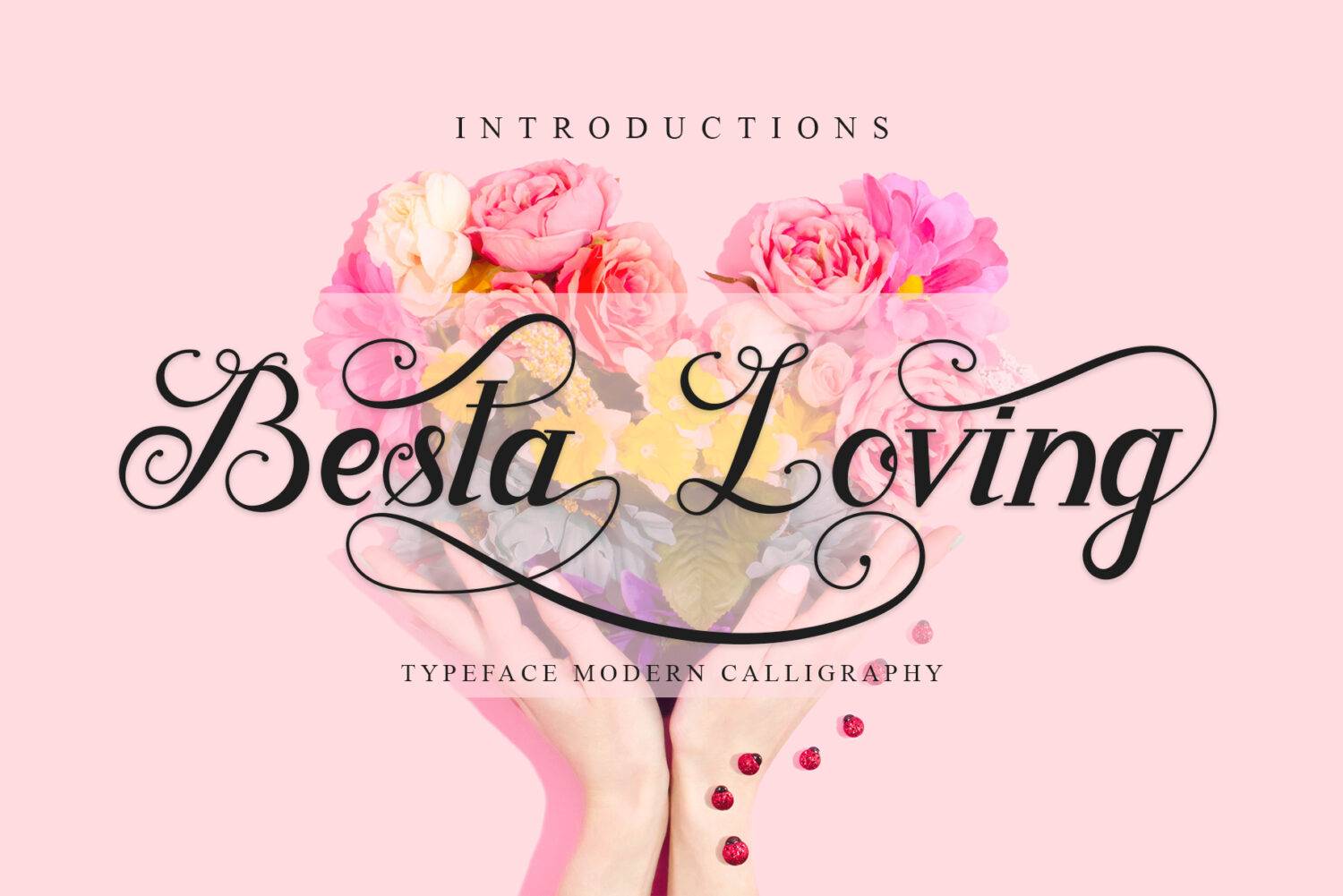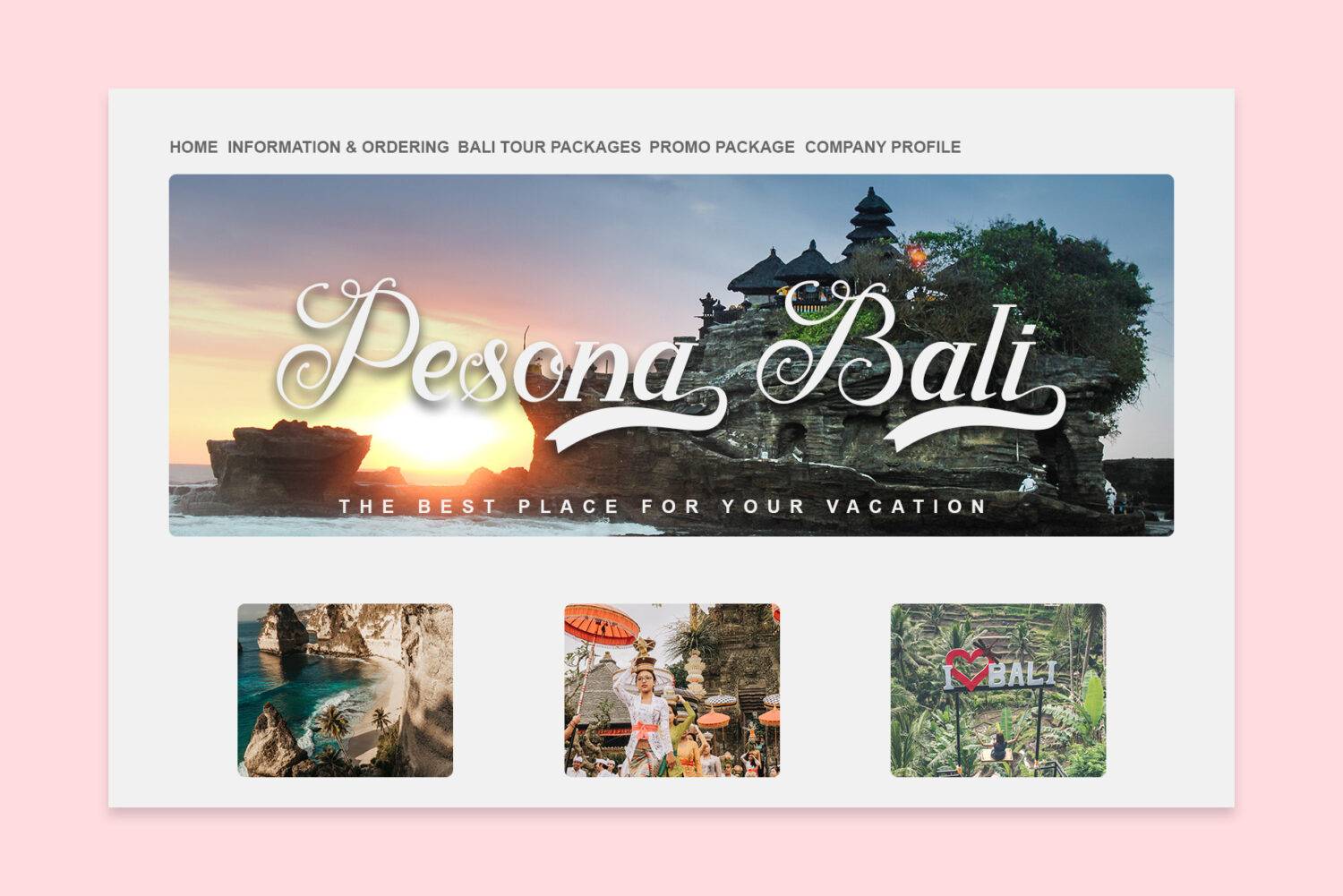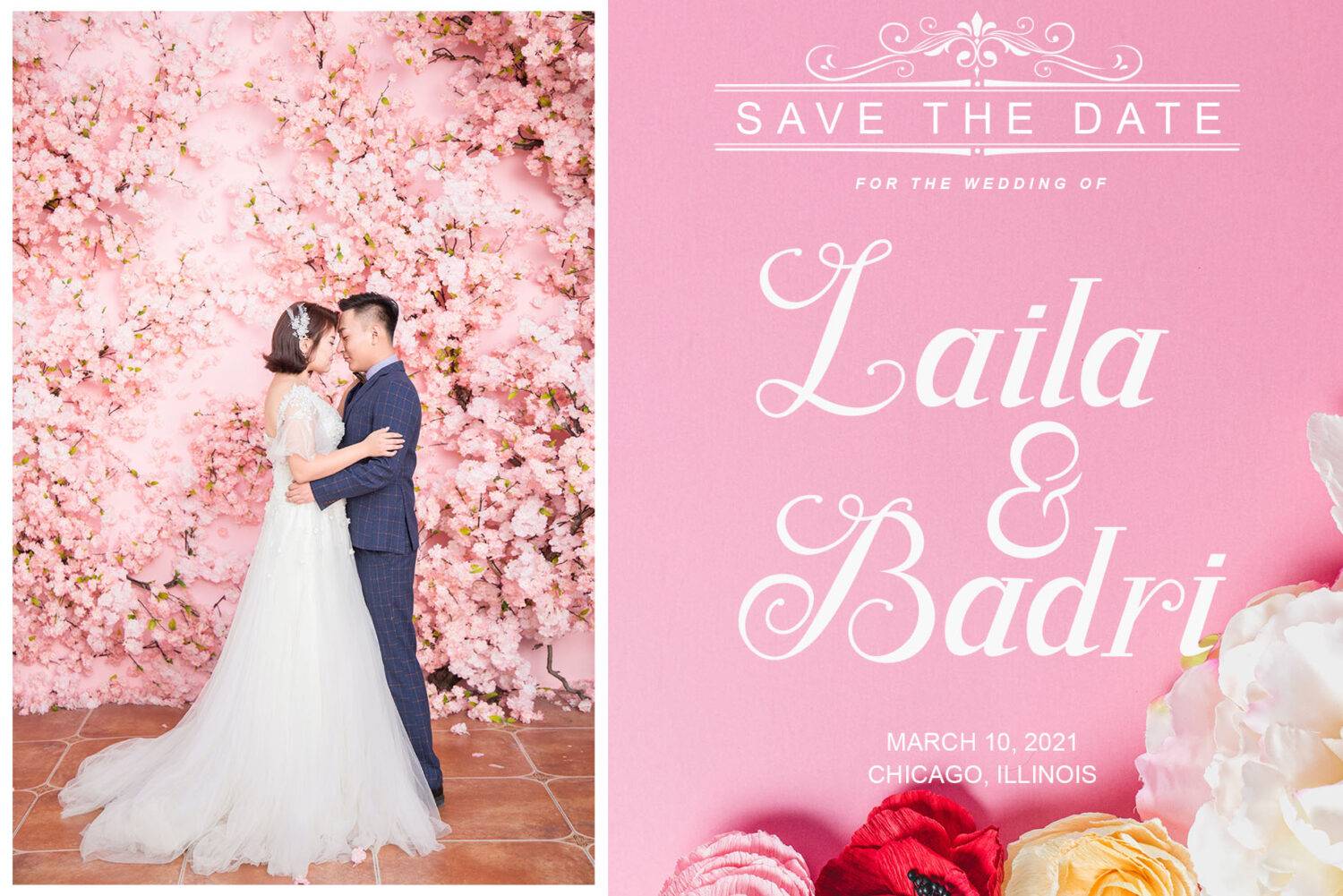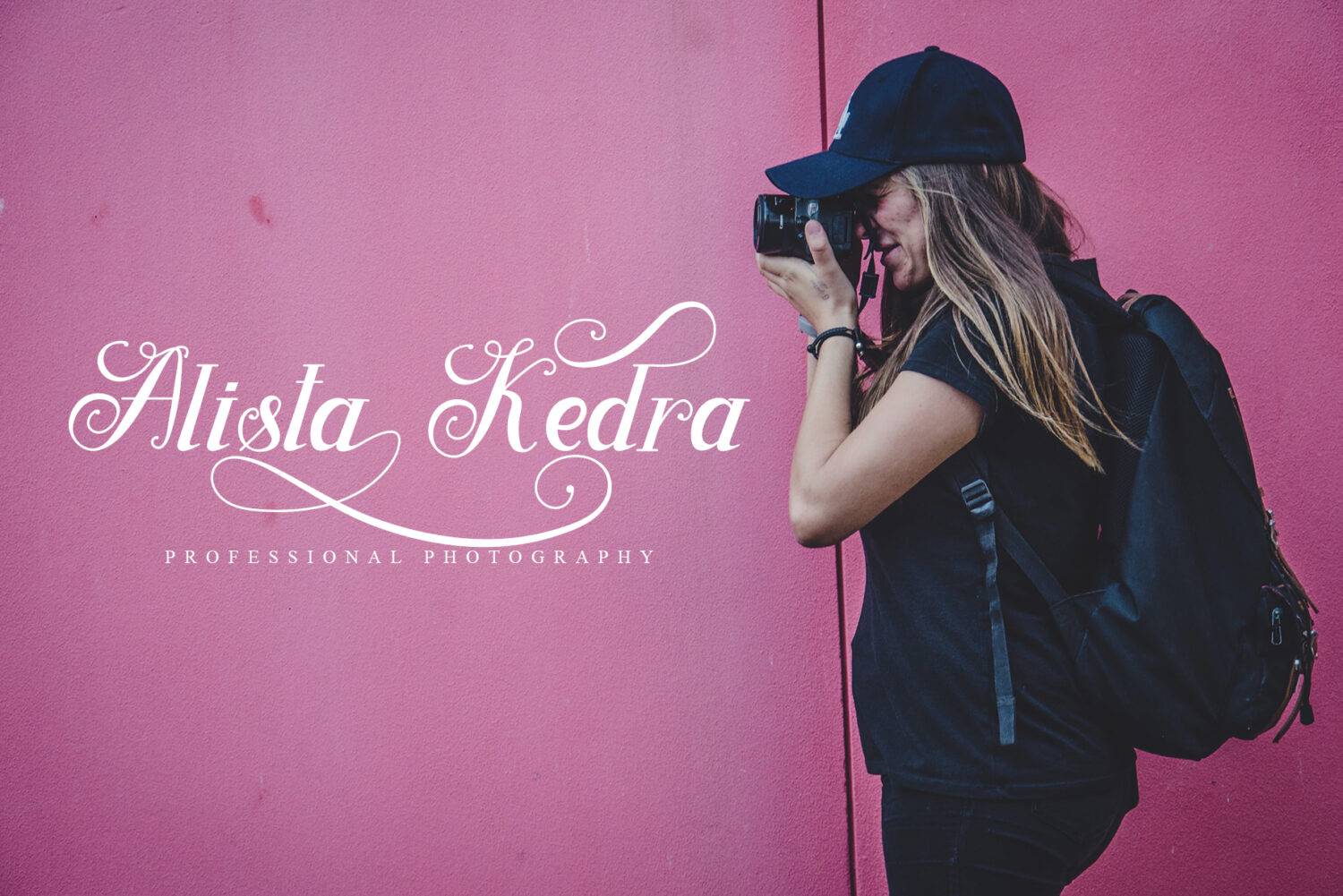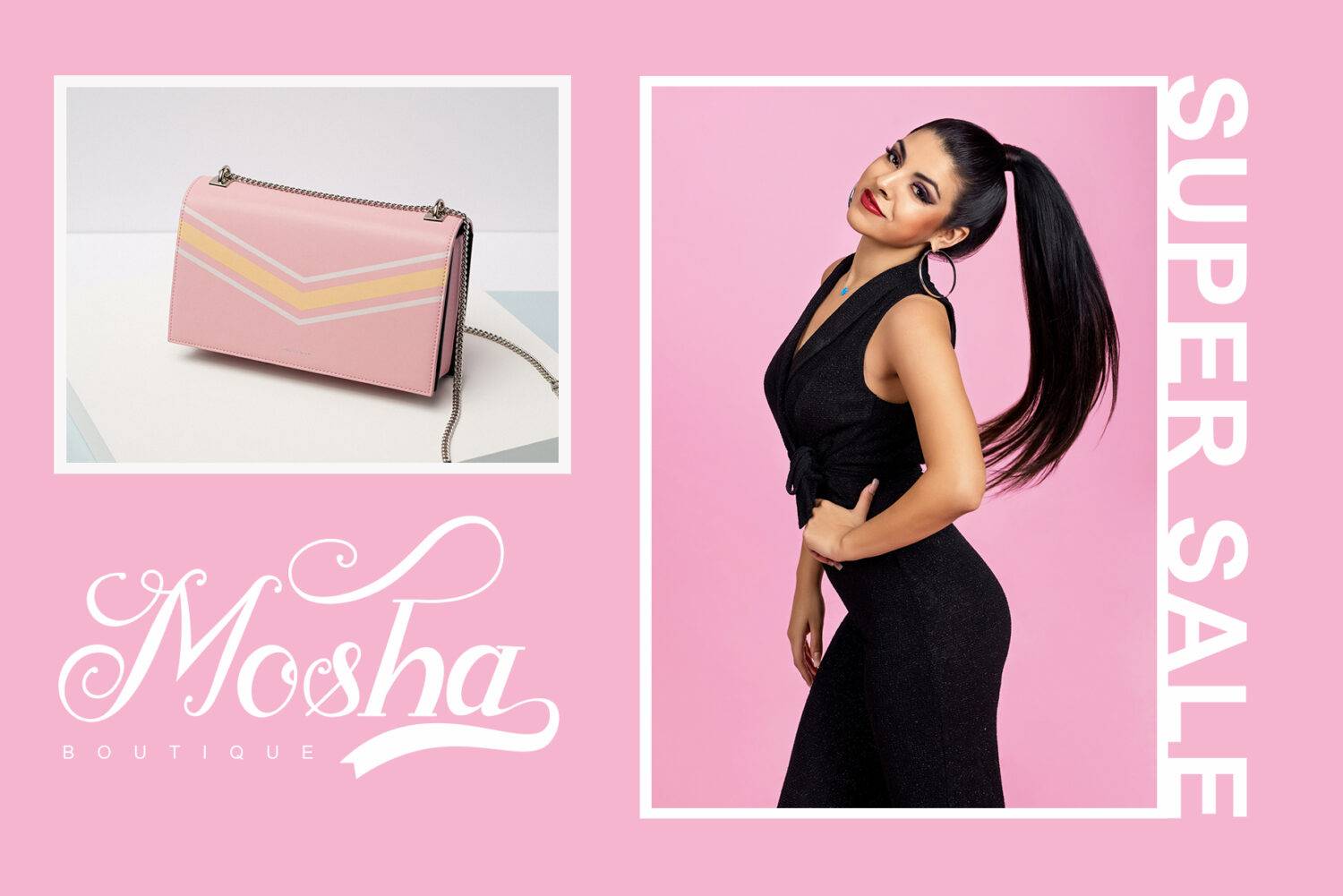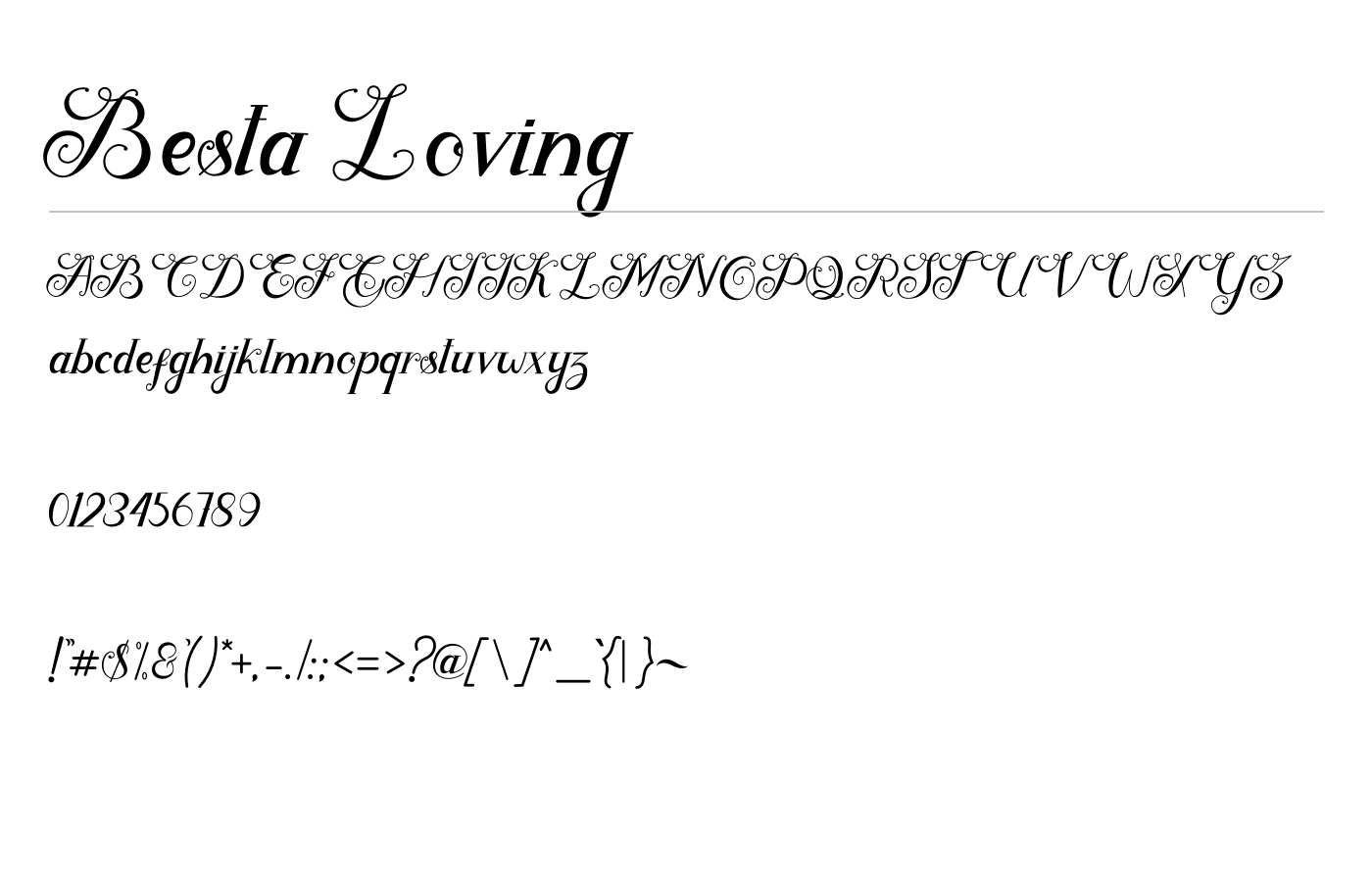
Besta Loving is an elegant script font characterized by its delicate, flowing strokes and decorative swirls that lend it a romantic and graceful personality. With its thin weight, moderate contrast, and refined flourishes, this font works beautifully for invitations, luxury branding, or editorial headlines where a touch of sophistication and charm is desired. Its classic yet ornamental style makes it ideal for projects seeking a vintage-inspired, feminine, and stylish look.
Besta Loving Font
About Besta Loving Font
| Font family | Besta Loving Font |
| Designer | Yayan Sihwadi |